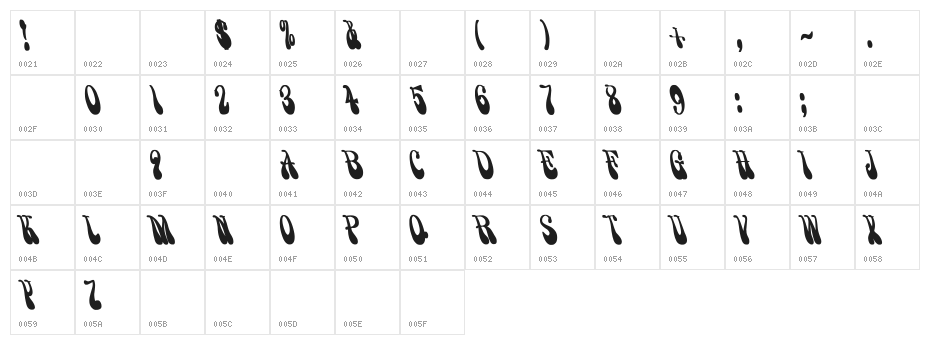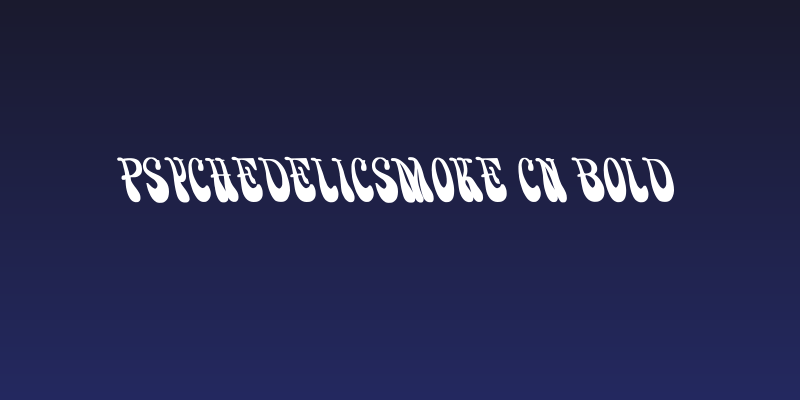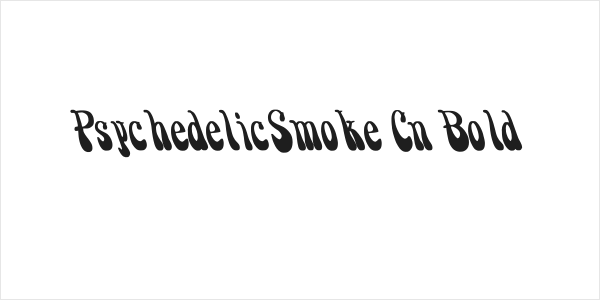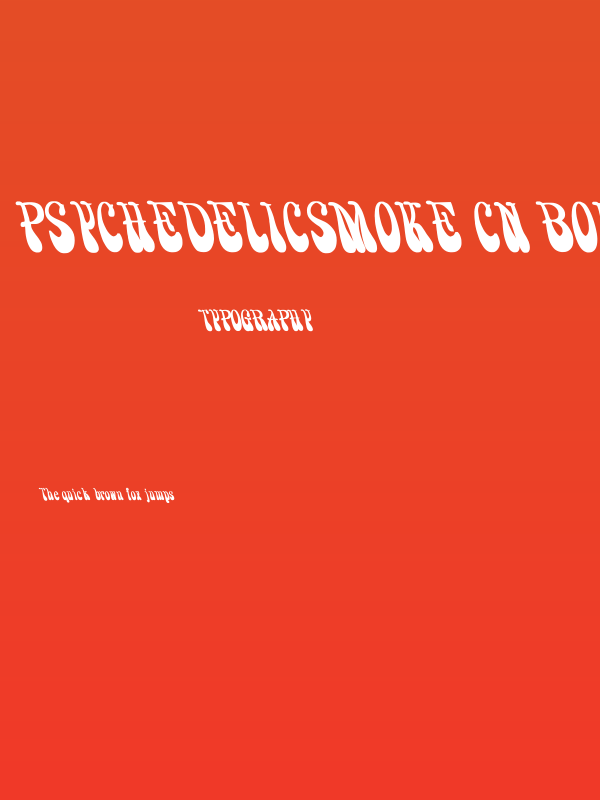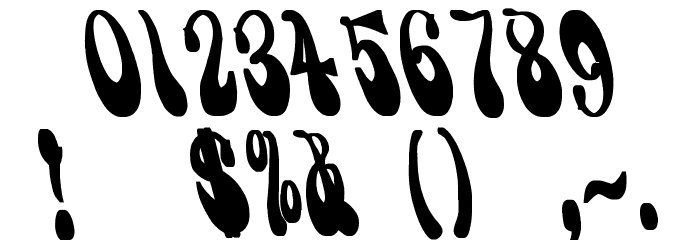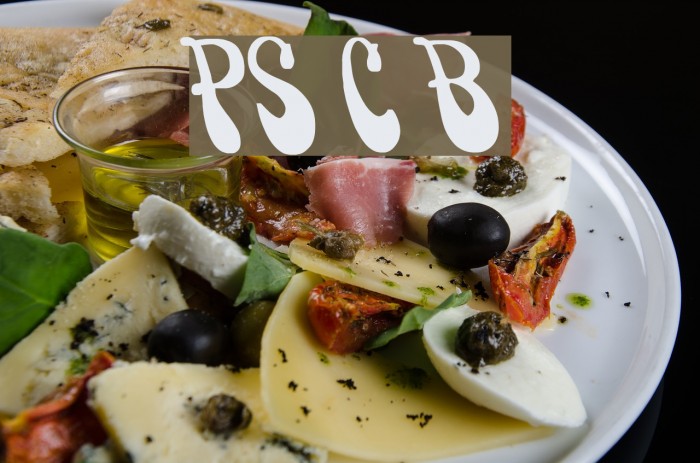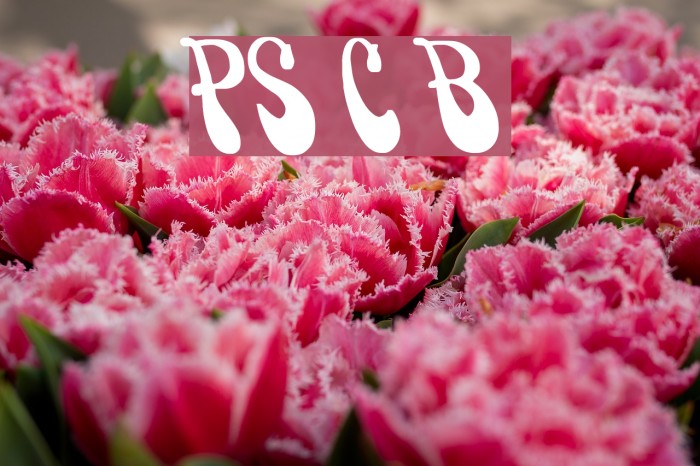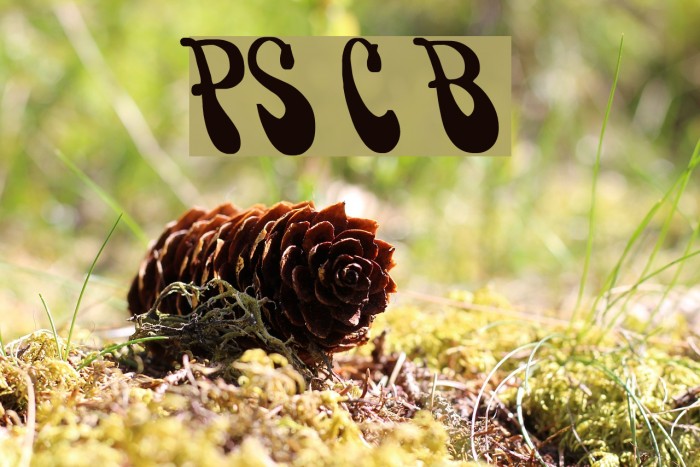
PsychedelicSmoke Cn Bold Font
PsychedelicSmoke Cn Bold Description
This font features a bold and condensed style with a distinctly psychedelic and retro vibe. The characters are heavily stylized with exaggerated curves and flowing lines, creating a sense of movement and fluidity. The uppercase and lowercase letters maintain a consistent design, with the lowercase being slightly more whimsical. Numbers and special characters follow the same bold and dynamic aesthetic, making the font suitable for eye-catching designs. The overall appearance is playful and artistic, perfect for projects that require a touch of nostalgia and creativity.
| Overall Style | Psychedelic, Retro |
| Use Case | Headlines, Posters, Logos |
| Proposed Projects | Ideal for music festival posters, retro-themed branding, album covers, and creative art projects. |